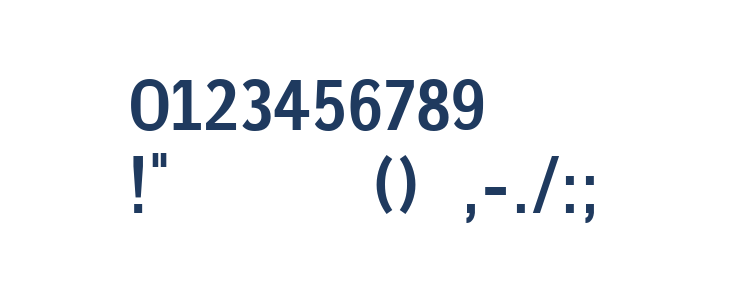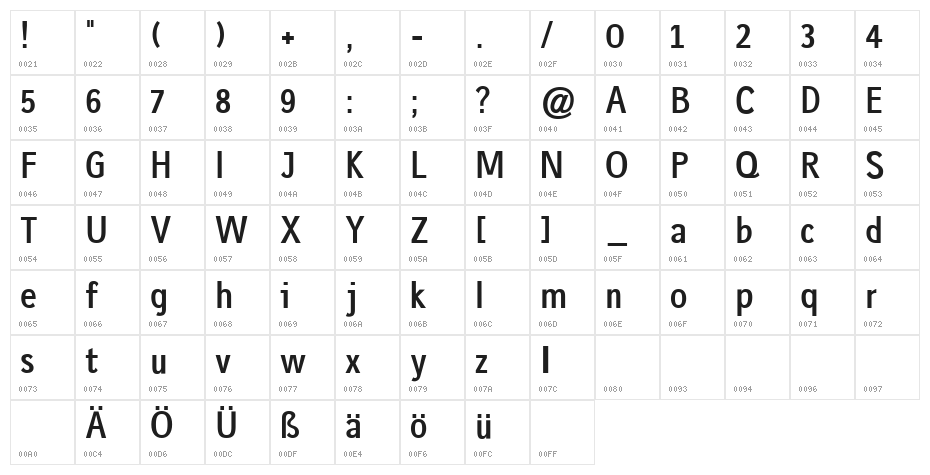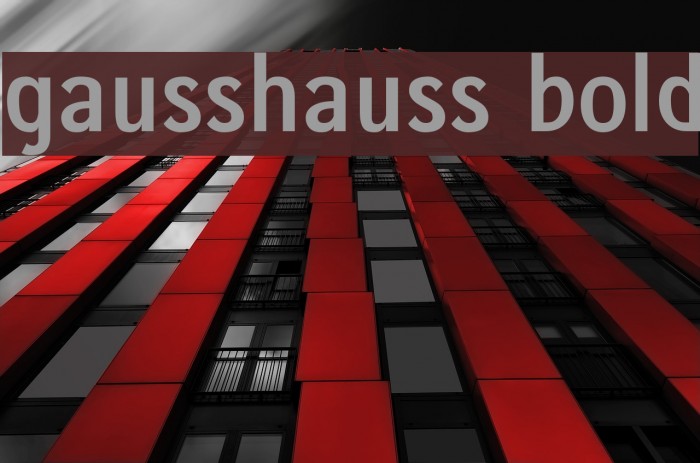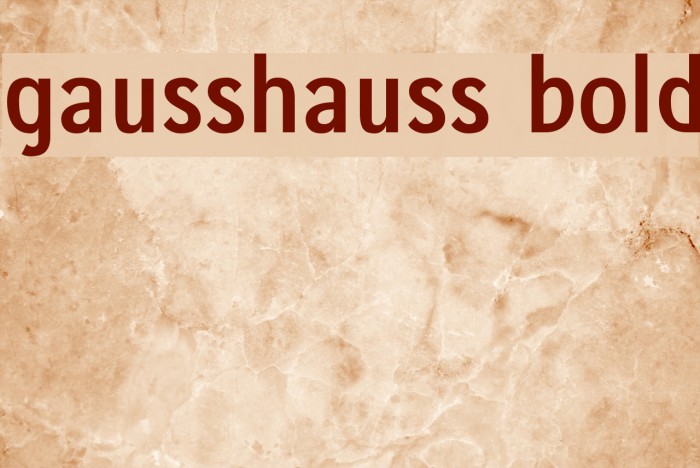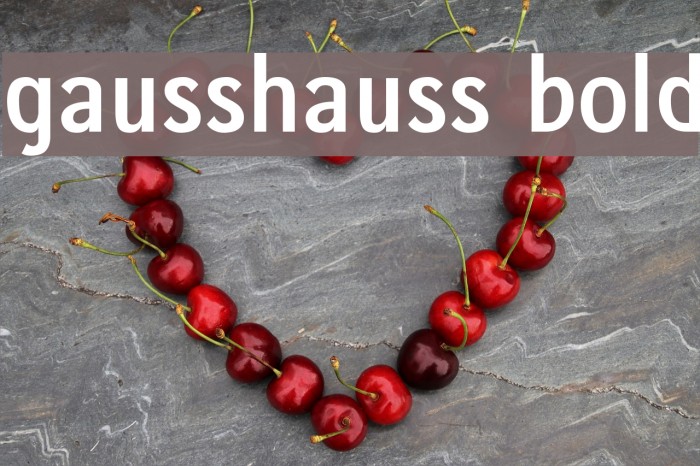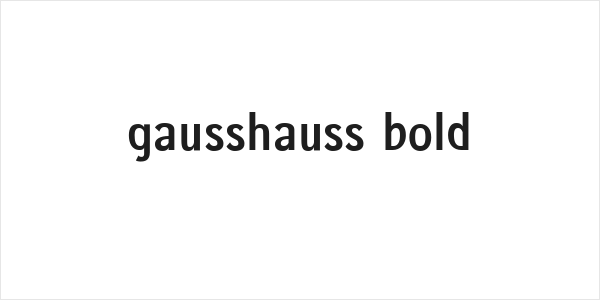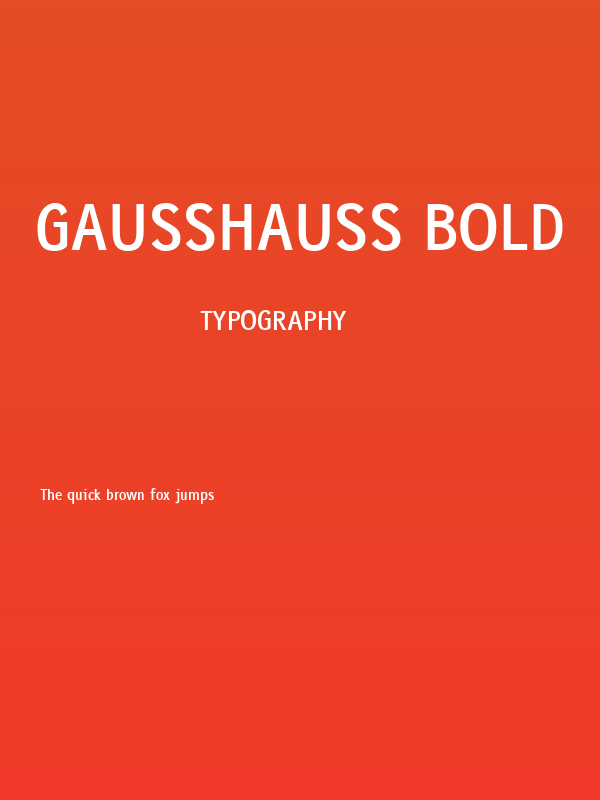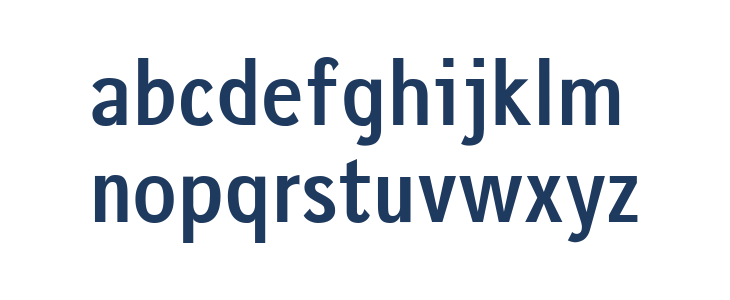
gausshauss bold Font
gausshauss bold Description
This font features a clean and modern sans-serif style with bold, uniform strokes that provide a strong visual impact. The characters are well-defined with a consistent weight, making them highly legible. The uppercase and lowercase letters maintain a harmonious balance, while the numerals and special characters are designed to complement the overall aesthetic. The font's simplicity and clarity make it versatile for various design applications.
| Use Case | Headlines, Logos, Digital Interfaces |
| Proposed Projects | Ideal for branding, advertising, headlines, and digital interfaces where clarity and impact are essential. |